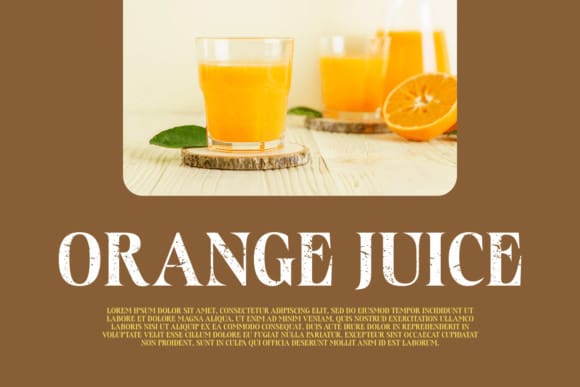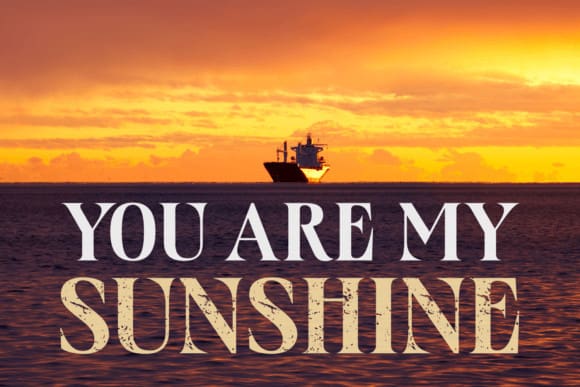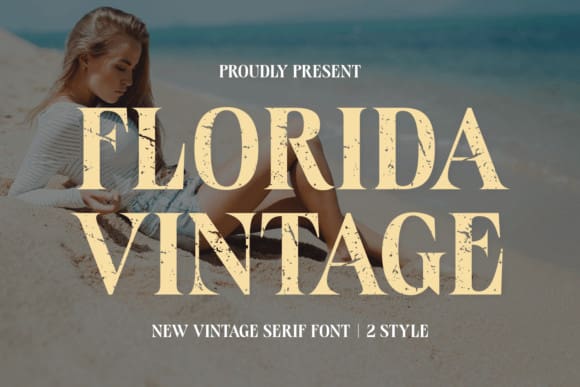
Florida Vintage Font
Florida Vintage Font, designed with a thrilling blend of classic and modern essences, this Serif font is perfect for amplifying the aesthetics of your project, be it fashion, branding, or books. Exclusively tailored to echo a vintage vibe with a dash of summer tones, the use of caps allows the content to hail attention. The authenticity is mirrored brilliantly in its grunge accents, making it an ideal selection for apparel and packaging designs.
Create trendsetting book covers, captivating magazines, and expressive greeting cards that beam with a time-honored flair. Delight your audience with its versatility, making logos and quotes leave a memorable impression. Suitable for designing T-shirts that stand out in a crowd, the “Florida Vintage” font adds a stylish and vogue finish to your creations.